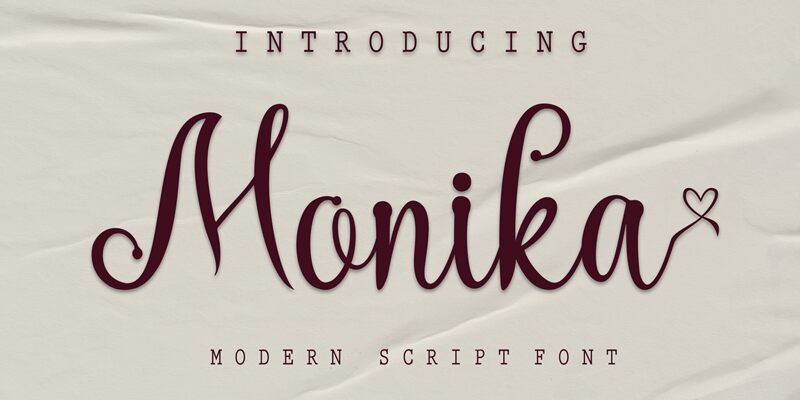
Monika Regular
Monika is a luxurious, refined script font that emanates sophistication and elegance. Its stylish alternates and ligatures make this font the perfect match for any project.